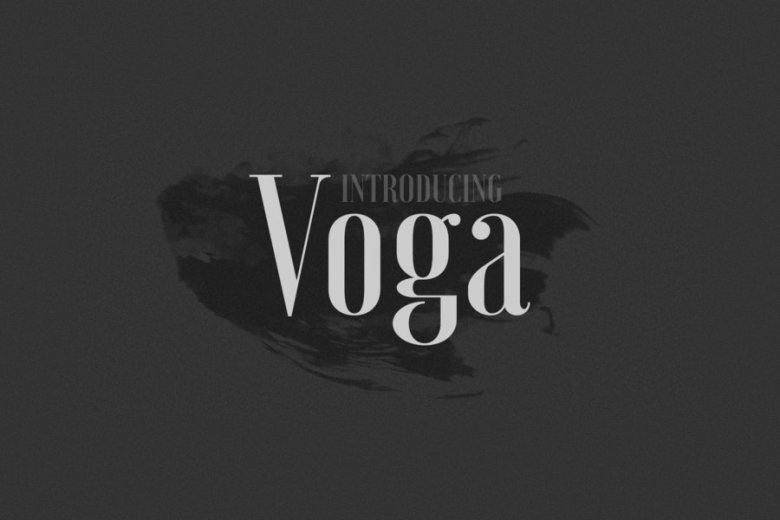
Voga Serif Font
Voga is an elegant and thin lettered serif font. This adaptable font will look great on a variety of design ideas. Made from font designer named Charles Daoud. It’s a very elegant and “sexy” typeface with some unique letterforms based on the principle of contrast – curves vs. strong straight lines – thin hairlines vs. thick stems – ball terminals vs. geometric serifs.
These caracteristics shape it into a glamourous display font primarily used for titles and large typography settings. Voga was inspired by iconic typefaces such as Bodoni and Didot. It has an extensive glyph set that supports languages for the Americas and most of Europe.